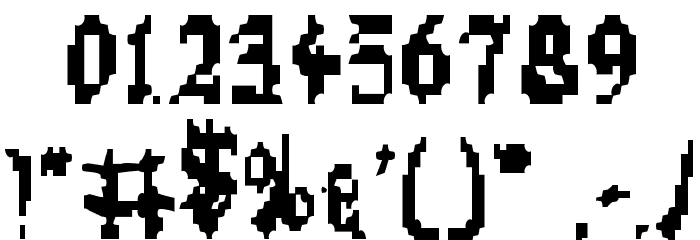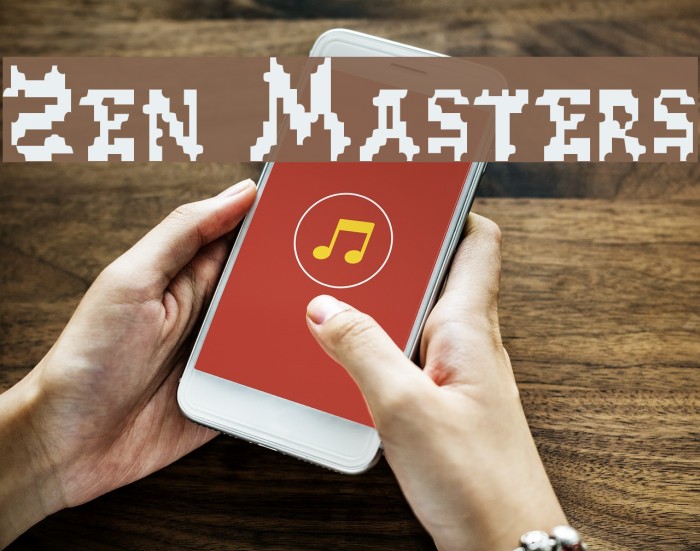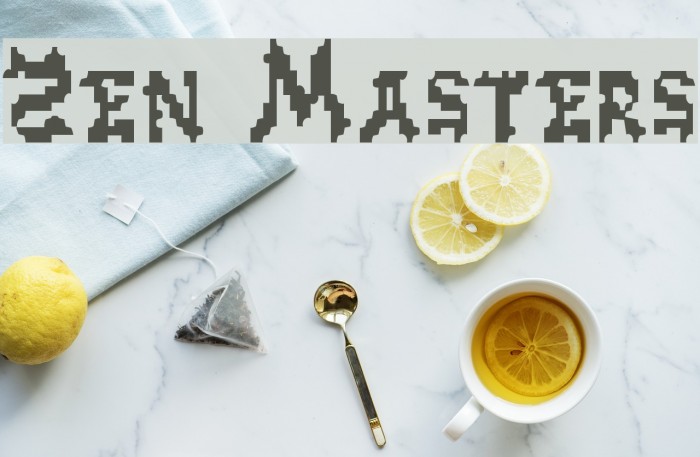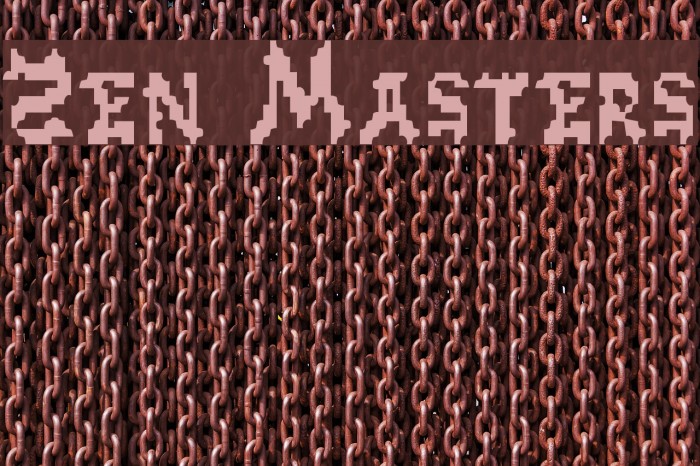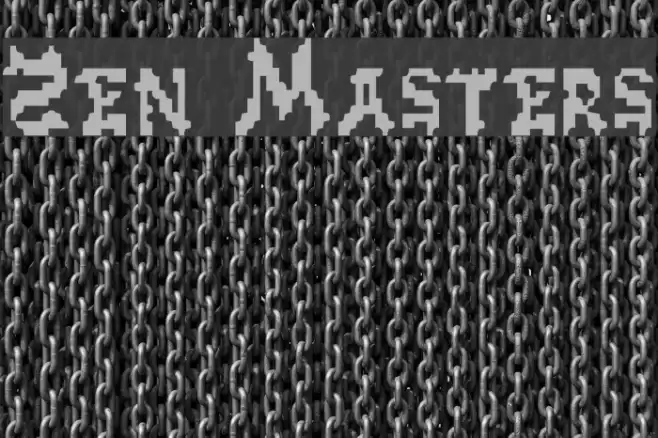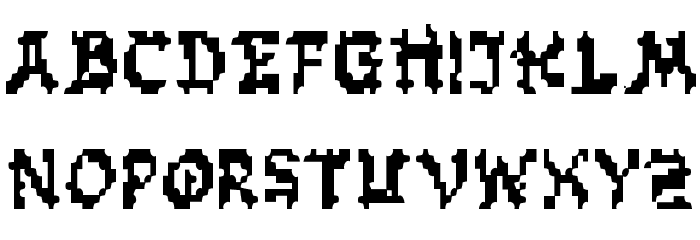
Zen Masters Font
Zen Masters Description
This font features a bold and striking design with a pixelated, digital aesthetic. The characters are constructed with sharp, angular edges and a blocky appearance, reminiscent of early video game graphics or digital displays. The uppercase and lowercase letters maintain a consistent style, with a uniform height and width that contributes to a cohesive look. The numbers and special characters follow the same design principles, ensuring a harmonious overall appearance. This font's unique style makes it stand out, offering a retro yet modern feel that can capture attention in various design contexts.
| Overall Style | Retro, Digital |
| Proposed Projects | Ideal for video game graphics, digital art projects, retro-themed posters, or any design requiring a bold, eye-catching typeface. |